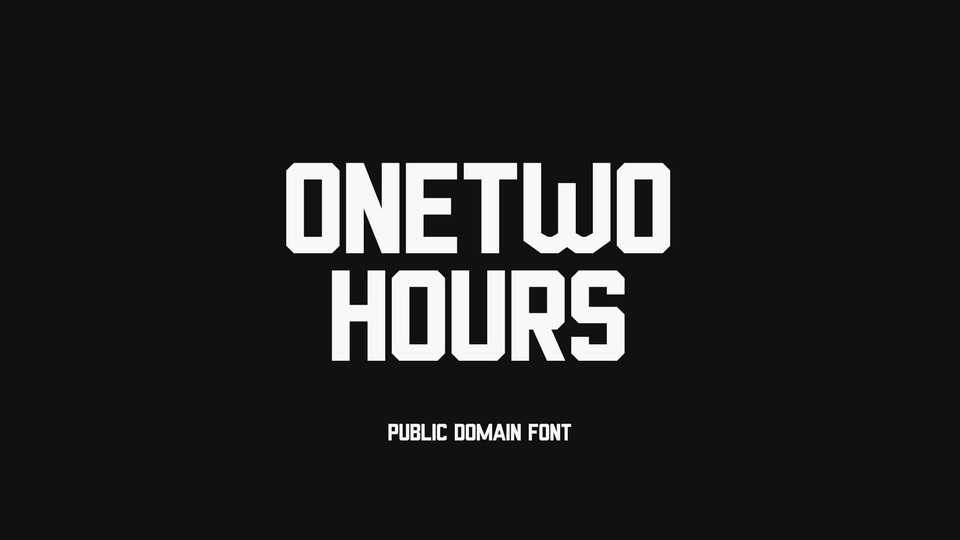
Download One Two hours font, an experimental display typeface made in two hours. With its bold blocky look the font is great for big short messages, posters and prints.
Designer: Abay Emes